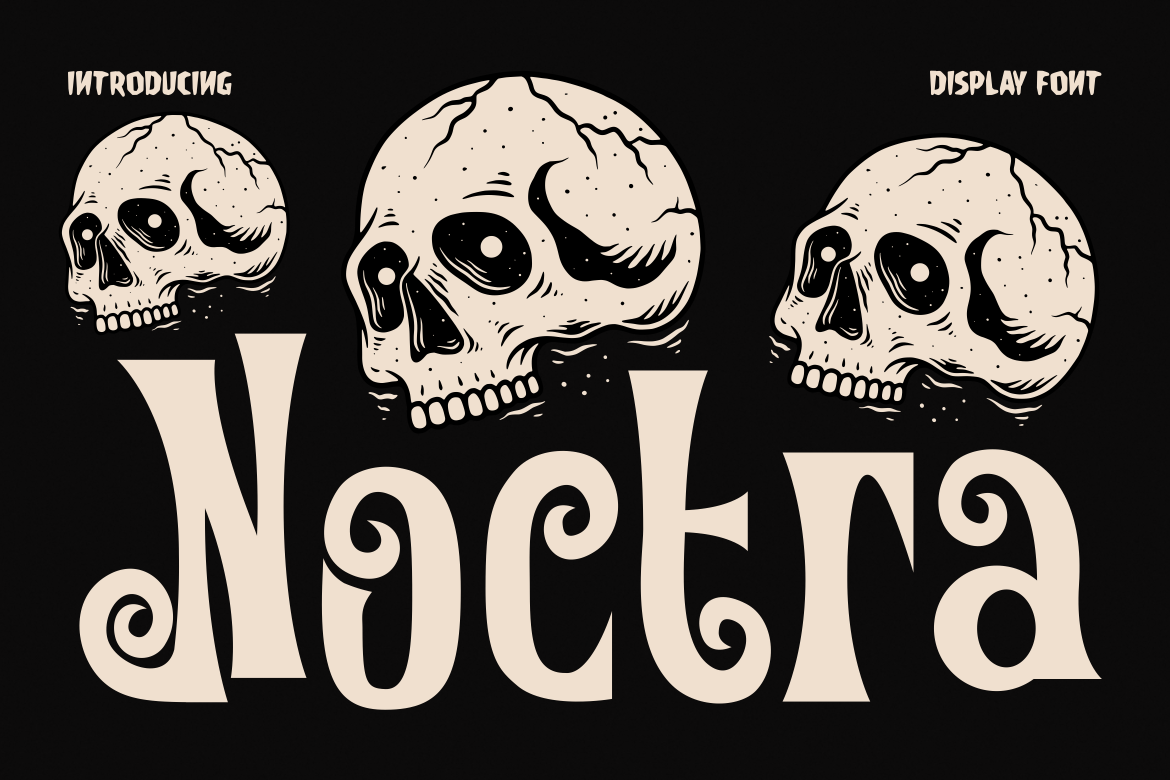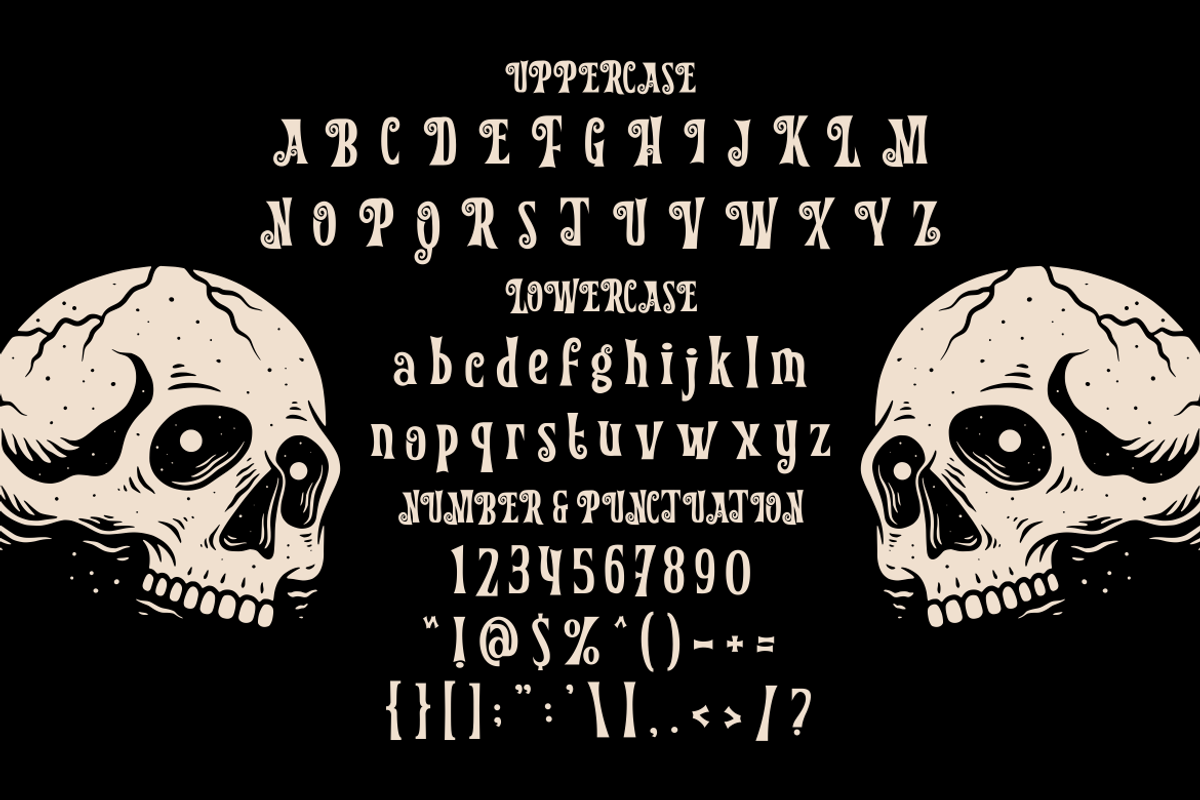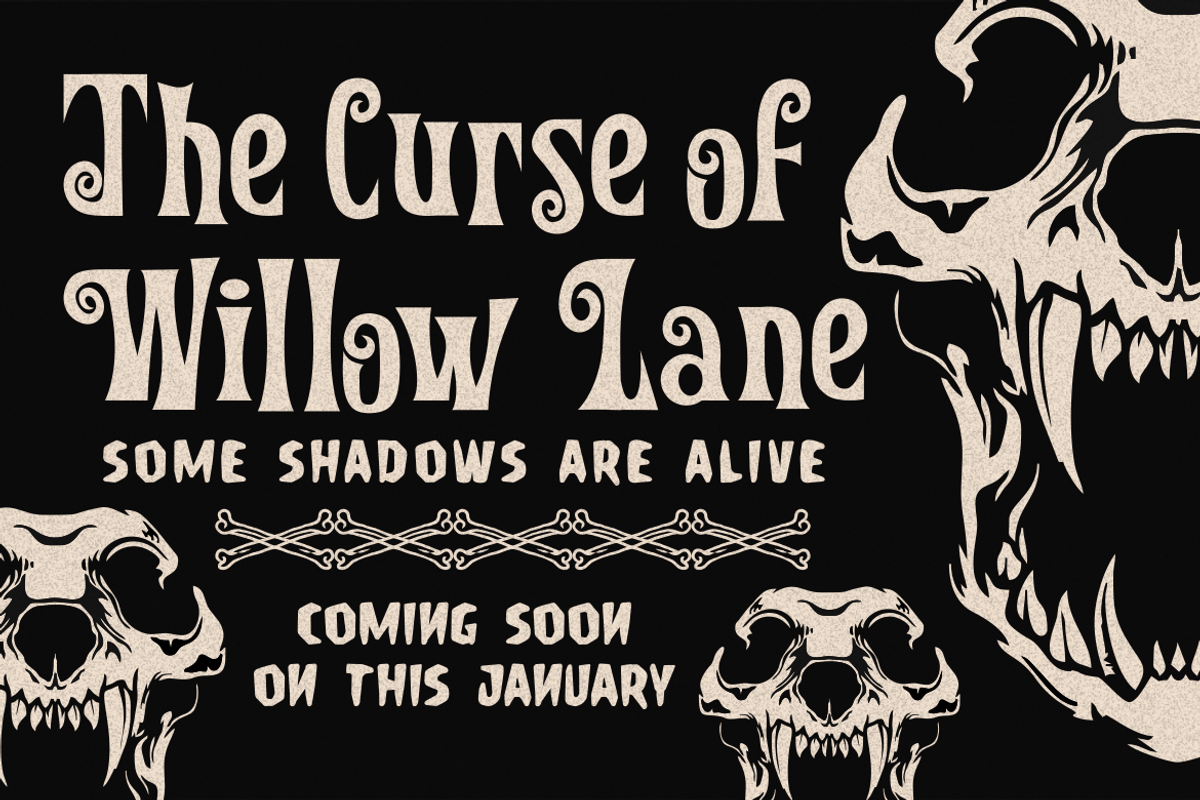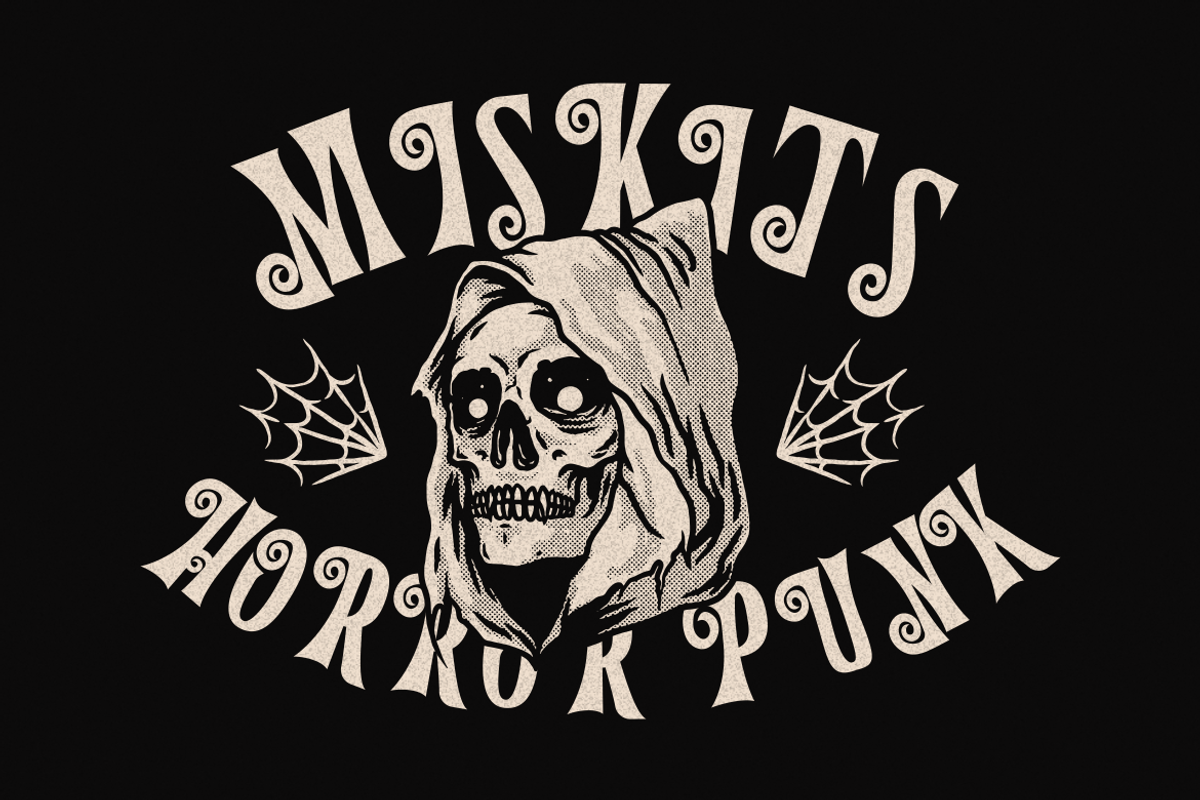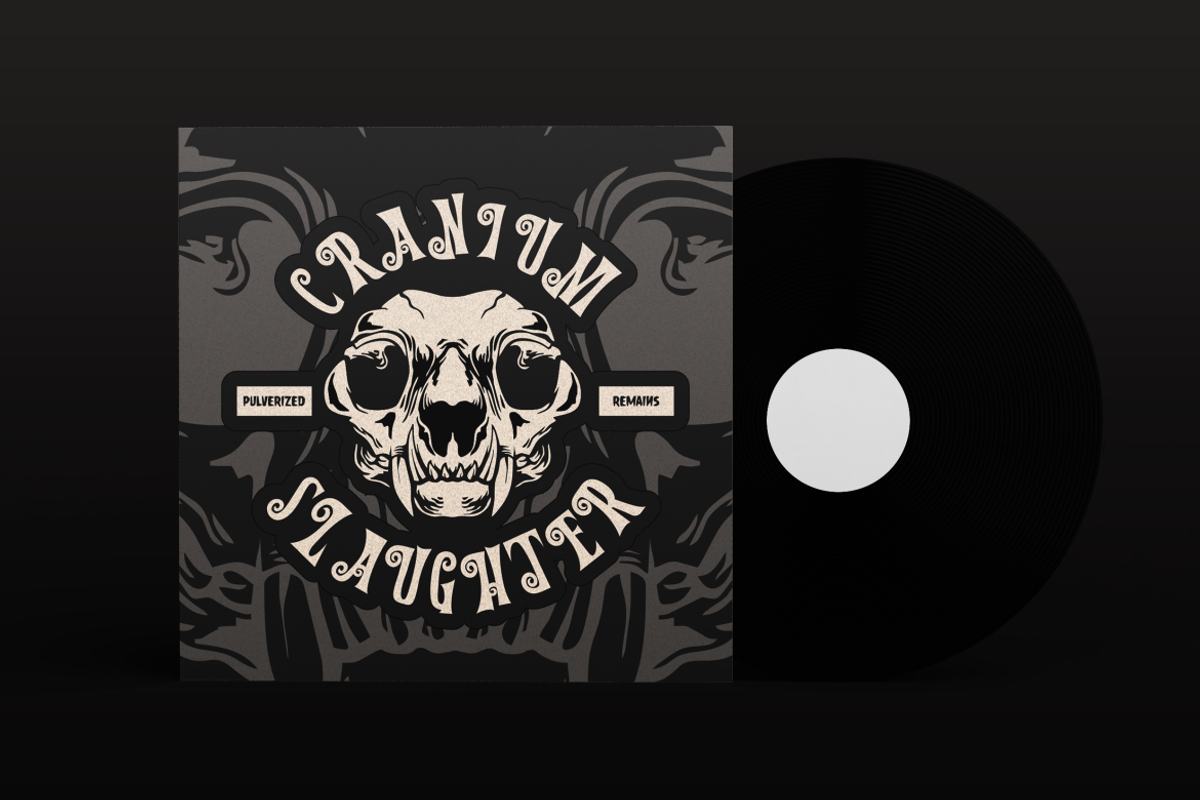
Noctra Display Font
Noctra Display Font is a bold serif display typeface with dramatic curves and expressive proportions. The letterforms feel tall and confident, with thick strokes and controlled contrast that create strong visual impact. Each character shows organic flow with rounded terminals and subtle irregularities that add a handcrafted feel. The shapes feel solid and slightly exaggerated, which helps headlines stand out instantly. Decorative curves and playful serif details give the font a theatrical presence without reducing readability. This font balances bold weight with clear spacing, making words easy to scan even at large sizes. It carries a fun dark tone that feels lively rather than aggressive. Noctra Display Font works especially well for designs that need character, attitude, and memorable shapes. It brings personality to titles while keeping letter recognition strong and consistent.
Designed for festive and spooky themes, this font excels in projects related to Halloween, parties, and playful horror concepts. It fits logos, branding, posters, headlines, packaging, and promotional visuals that need a bold statement. The expressive shapes help event titles, movie headers, book covers, and stickers feel more engaging. For kids themed horror, fun party branding, or seasonal campaigns, this font adds charm and energy. It also performs well in crafting projects, greeting cards, and magazine titles where mood matters. Noctra Display Font gives designers a reliable display option that feels fun, bold, and slightly eerie. It supports creative freedom while maintaining a clear visual rhythm. The font helps messages feel exciting, dramatic, and full of character without losing clarity or balance.